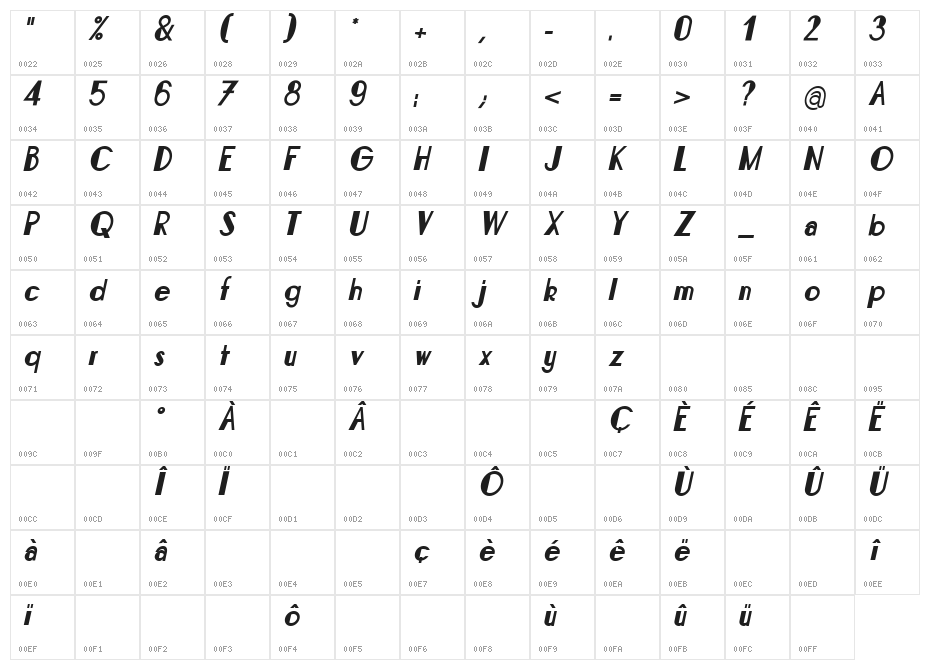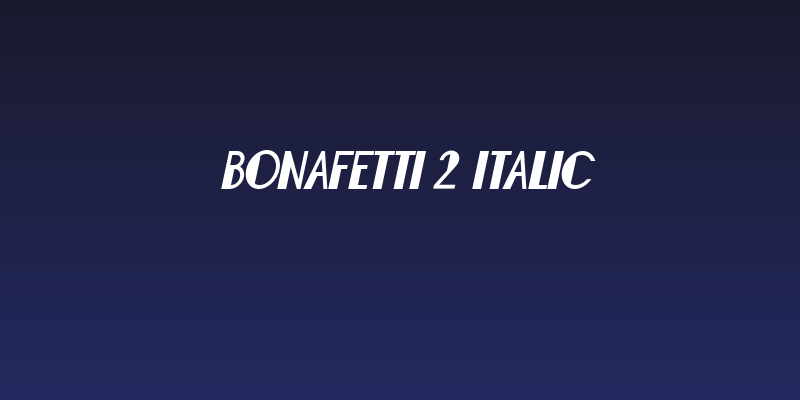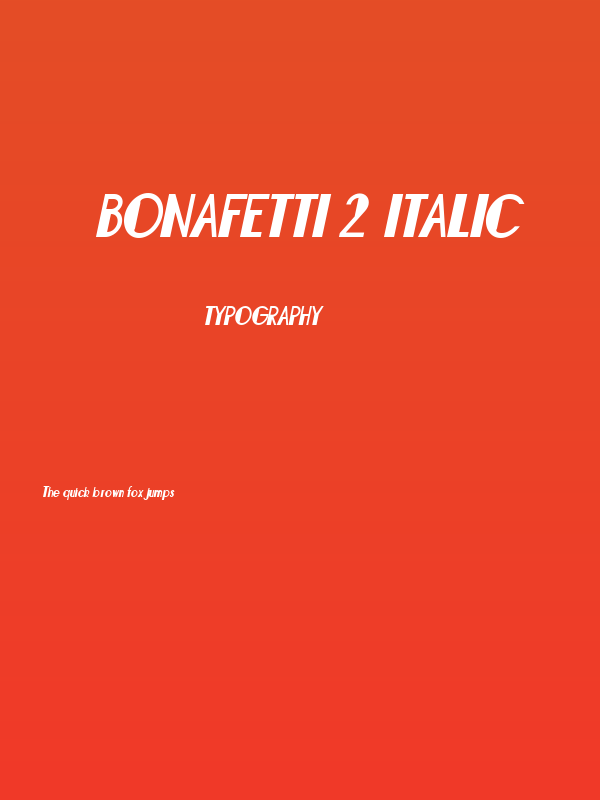
Bonafetti 2 Italic Font
This font features a dynamic and modern italic style with a strong presence. The characters are slightly condensed, giving it a sleek and streamlined appearance. The uppercase letters are bold and assertive, while the lowercase letters maintain a consistent flow with a slight slant, enhancing readability. The numerals are clear and distinct, matching the overall aesthetic of the font. Special characters are well-integrated, adding versatility to its use. The font's design is suitable for making impactful statements, combining elegance with a contemporary edge.
| Proposed Projects | Ideal for branding, advertising, headlines, and editorial design where a modern and assertive look is desired. |